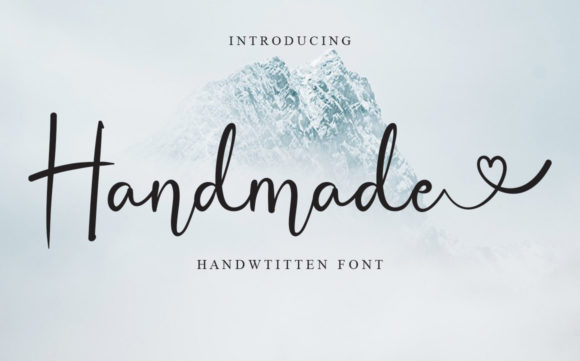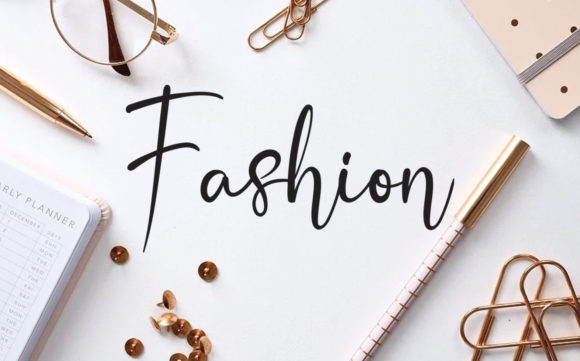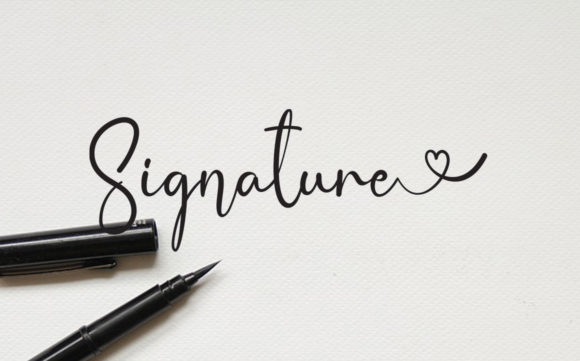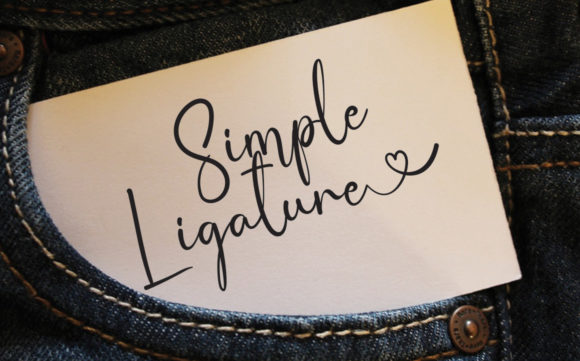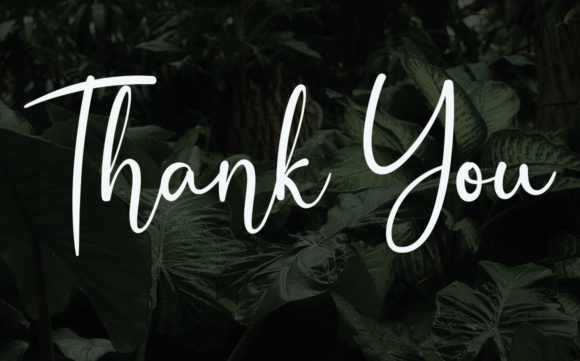
Handmade is a beautiful and relaxed handwritten font. Use it for wall displays, wedding invitations, social media post logos,
advertisements, product packaging, product designs, and any project that requires impressive typography.